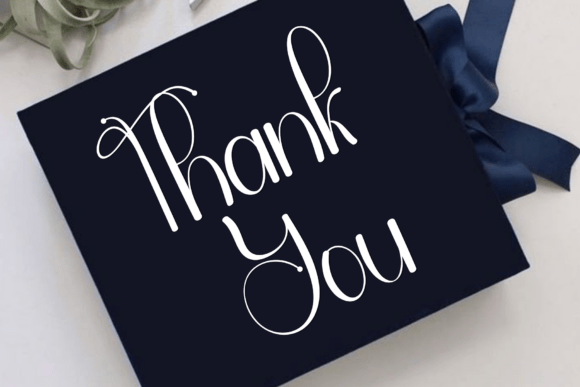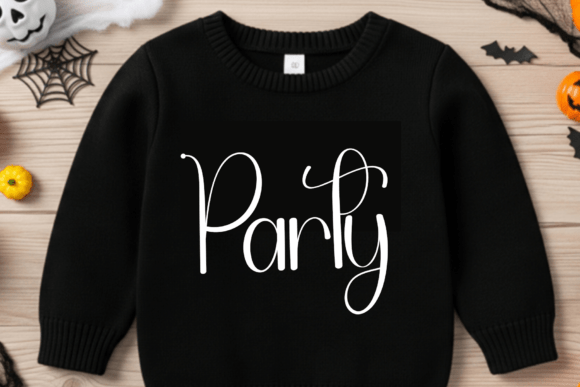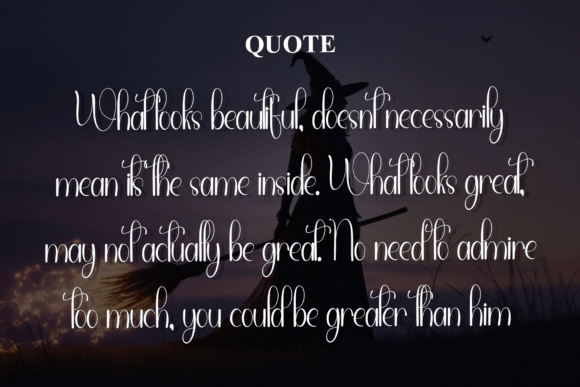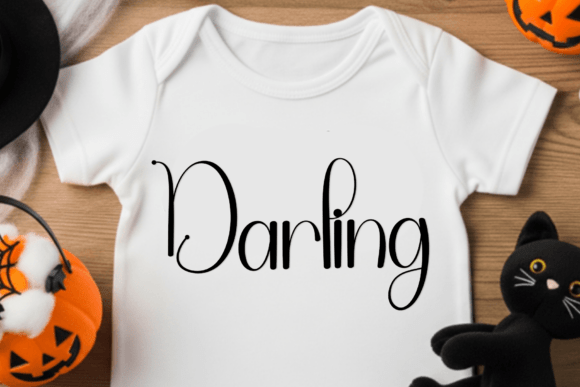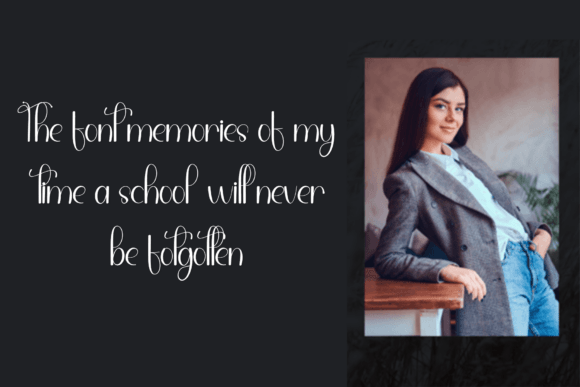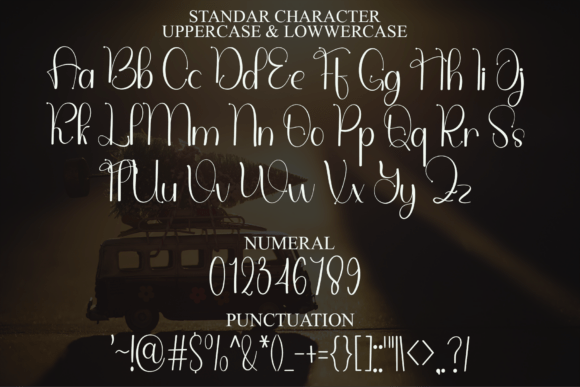
Celebrating Style with Cookies Anniversary Font
Are you on the hunt for a font that combines elegance with a dash of playfulness? Look no further than the Cookies Anniversary Font. This slender and charming monolinear font is designed with a “cute” and slightly whimsical aesthetic, making it perfect for a variety of design projects. In this article, we’ll dive into the details of what makes Cookies Anniversary Font so special and why it’s a must-have for designers and crafters alike.
Aesthetics and Design
Cookies Anniversary Font boasts tall, vertically elongated letterforms with a consistent, thin stroke weight and perfectly rounded terminals. Its structure is clean and organized, giving it a sophisticated look. However, what truly sets it apart are the slightly irregular, hand-drawn connections and oversized loops that give it a playful personality. This unique blend of elegance and whimsy makes it an ideal choice for a wide range of design applications.
One of the standout features of Cookies Anniversary Font is its versatility. Marketed as “perfect for spooky design,” this font might surprise you with its ability to adapt to various themes and styles. Whether you’re designing for a Halloween event, a wedding, or simply crafting artisanal product labels, Cookies Anniversary Font proves to be an excellent choice. Its elegant yet playful nature ensures that it can seamlessly transition between different contexts, making it a valuable addition to any designer’s toolkit.
Ideal for Various Design Projects
Cookies Anniversary Font is particularly well-suited for:
- Event Stationery: Create invitations, thank you cards, and other stationery with a personal touch.
- Creative Invitations: Stand out with unique and eye-catching invitations for any occasion.
- Artisanal Product Labels: Add a touch of elegance and whimsy to your product labels, making them more appealing to customers.
- Seasonal Holiday Graphics: Whether it’s Halloween, Christmas, or any other holiday, Cookies Anniversary Font can help you create captivating graphics.
Why Choose Cookies Anniversary Font?
With so many fonts available, what makes Cookies Anniversary Font a top choice? Here are a few reasons:
- Unique Aesthetic: Its blend of elegance and playfulness is hard to find in other fonts.
- High Versatility: Suitable for a wide range of projects and themes.
- Easy to Read: Despite its slender design, the font remains clear and easy to read.
Tips for Using Cookies Anniversary Font
To get the most out of Cookies Anniversary Font, consider the following tips:
- Experiment with Colors: While the font itself is elegant, playing with different colors can enhance its whimsical aspects.
- Pair with Other Fonts: Don’t be afraid to combine Cookies Anniversary Font with other fonts for added contrast and interest.
- Adjust Letter Spacing: For a more customized look, adjust the letter spacing to fit your design needs.
Cookies Anniversary Font is more than just a font; it’s a design companion that can elevate your projects with its unique blend of elegance and playfulness. Whether you’re a designer working on a client’s project or a crafter looking for that perfect font for your DIY endeavors, Cookies Anniversary Font is sure to impress. Its versatility, aesthetic appeal, and ease of use make it a valuable asset in the world of design. So, why wait? Explore the possibilities with Cookies Anniversary Font and take your designs to the next level.